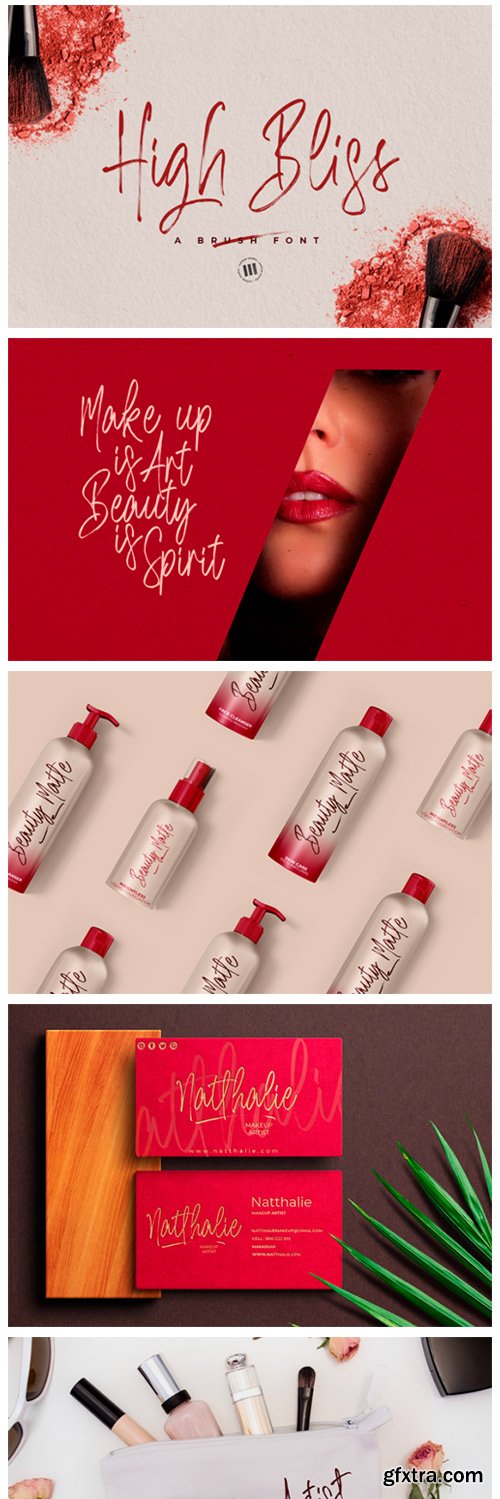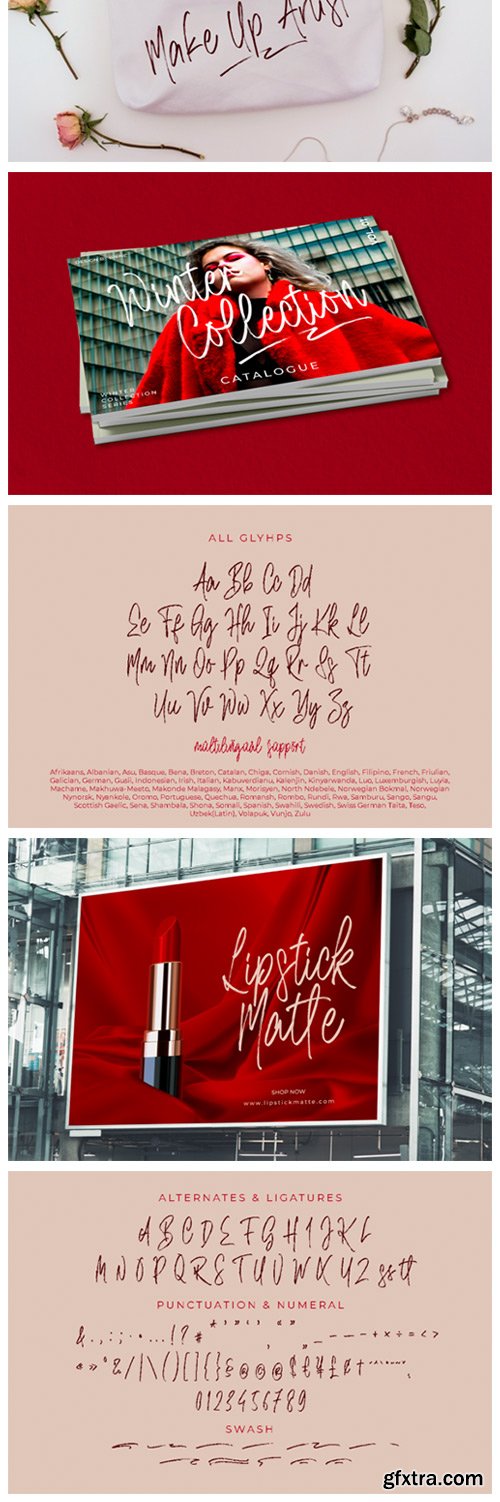
High Bliss Font
High Bliss is a lovely brushed handwritten font. Featuring a delicate and sweet style, this font will most certainly elevate each of your designs. This font is PUA encoded which means you can access all of the glyphs and swashes with ease!